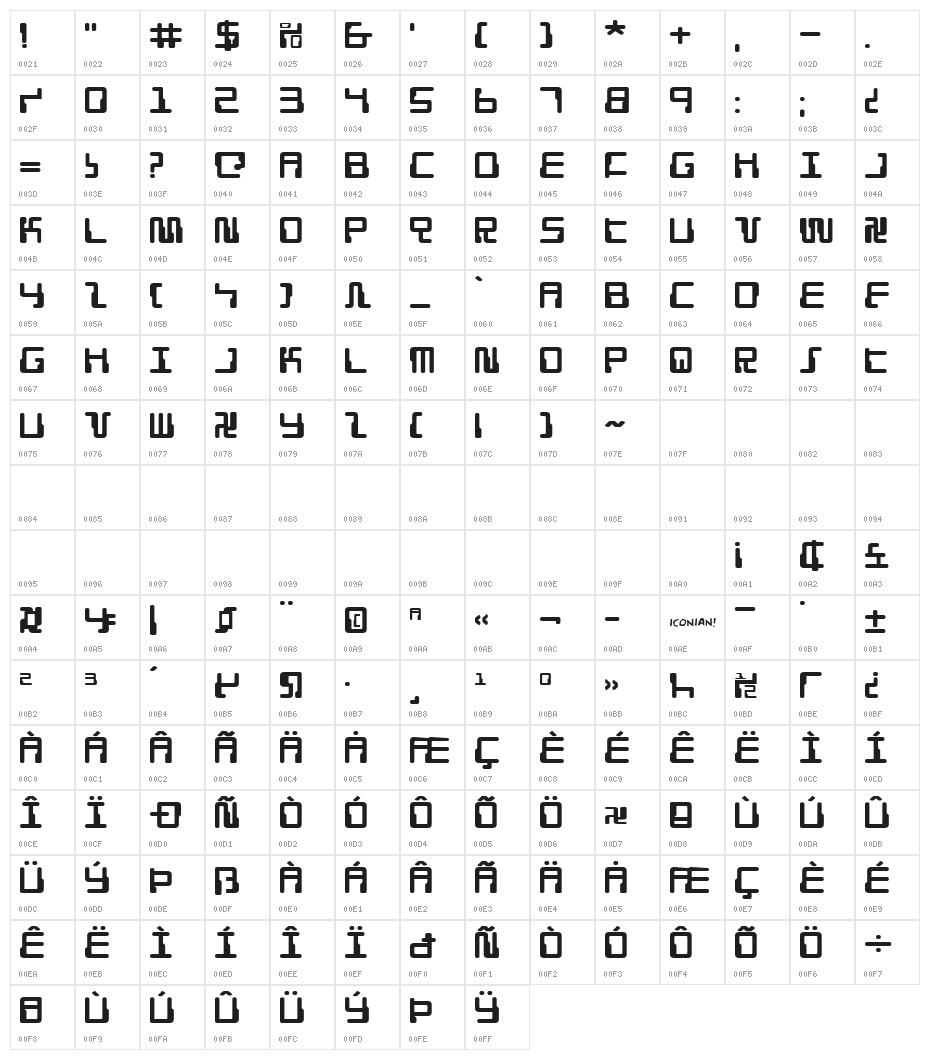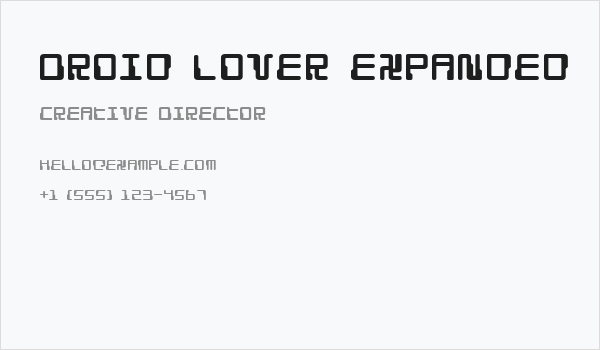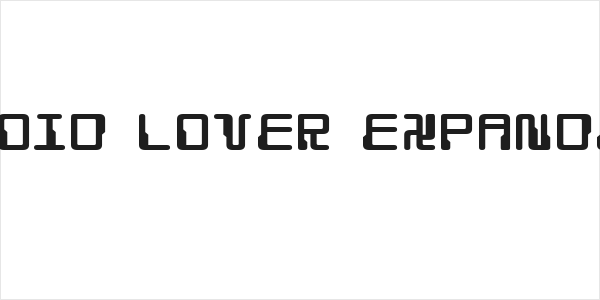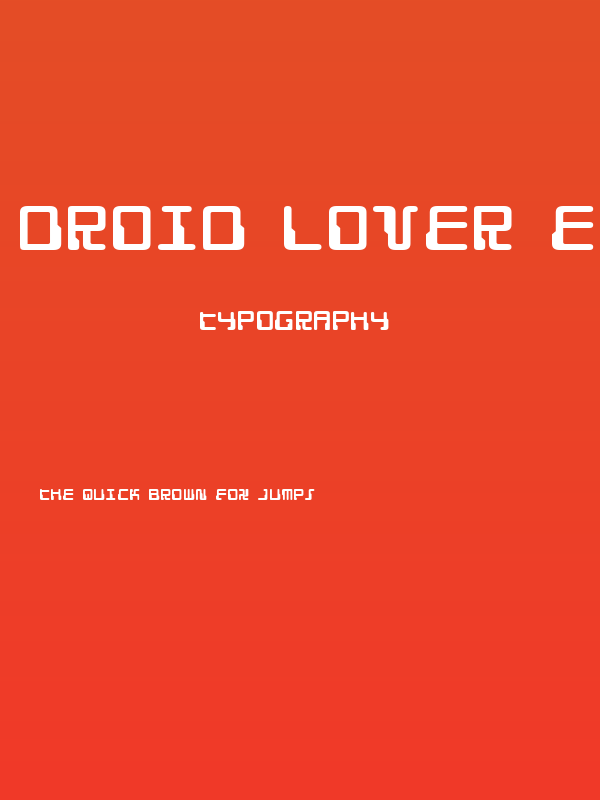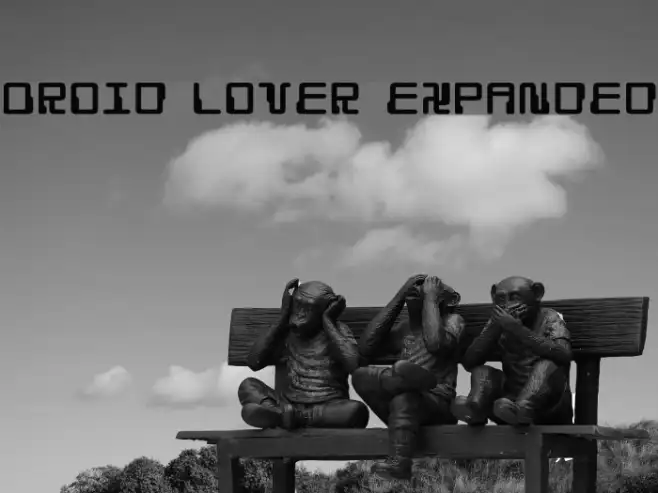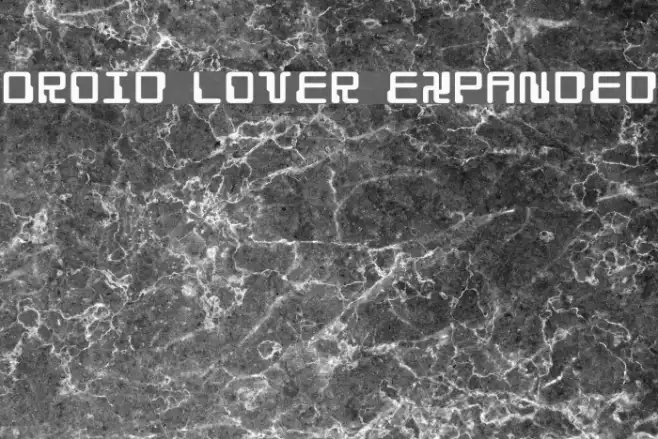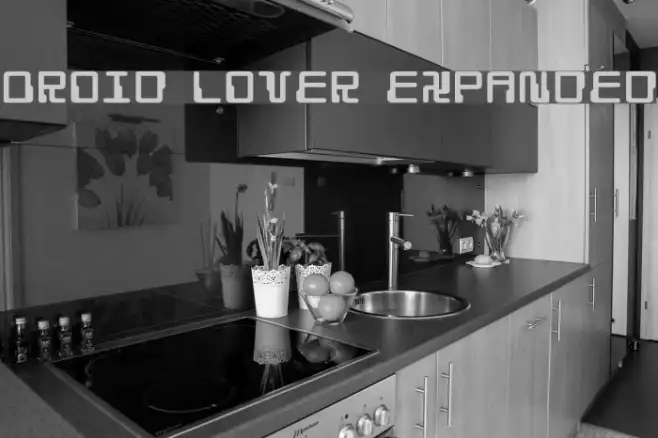
Droid Lover Expanded Font
Droid Lover Expanded Description
This font features a futuristic and geometric design with a distinctly digital aesthetic. The characters are bold and blocky, with rounded edges that give them a softened appearance. The uniformity in stroke width across all characters contributes to a cohesive and modern look. The uppercase and lowercase letters maintain a consistent style, with the lowercase letters slightly smaller in size but retaining the same structural design. Numbers and special characters are crafted in the same bold, geometric style, ensuring a seamless integration across different types of text. The overall appearance is both tech-inspired and playful, making it suitable for projects that require a modern and innovative touch.
| Proposed Projects | Ideal for tech-related branding, video game titles, sci-fi posters, and digital interfaces. |